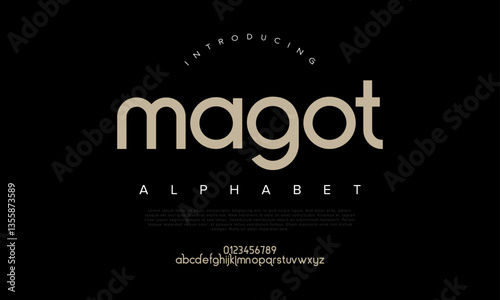
Magot Modern Bold Font. Sans Serif Font. Regular Italic Uppercase Lowercase Typography urban style alphabet fonts for fashion, sport, technology, digital, movie, logo design, vector illustration